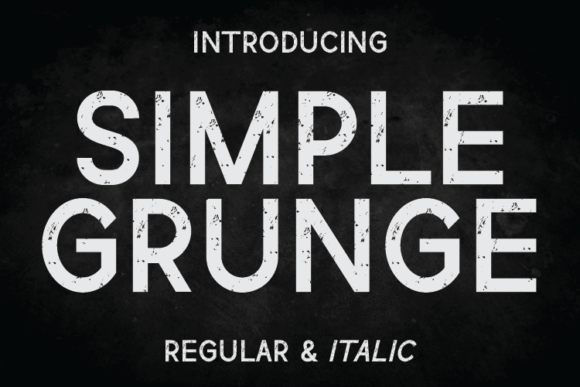
Introducing the ultimate solution to your design needs - Simple Grunge Font. Created by Rvandtype, this display font is the perfect fit for all your creative projects. With its grunge-style design, it adds a unique touch of trendiness to your designs, making them stand out from the rest.
Simple Grunge Font is the Best Font For Retina Display, providing high-quality visuals that will captivate your audience. The font is PUA encoded, giving you access to all glyphs and alternates with ease. This means that you can add your personal touch to your designs with just a few clicks.
One of the best features of Simple Grunge Font is its versatility. Whether you are working on a website design, marketing campaign, or creating stunning graphics for social media, this font will elevate your design game. It adds an eye-catching element to your designs, making them more memorable and impactful.
With Simple Grunge Font, your designs will never be boring or predictable. This font is the perfect solution for all your creative needs, whether you are a professional designer or a beginner. It is easy to use and produces fantastic results, every time.
In summary, Simple Grunge Font is the perfect addition to your font collection. It is a unique, trendy, and versatile font that will take your designs to the next level. So, don't hesitate to download Simple Grunge Font and start creating amazing designs that will leave a lasting impression!